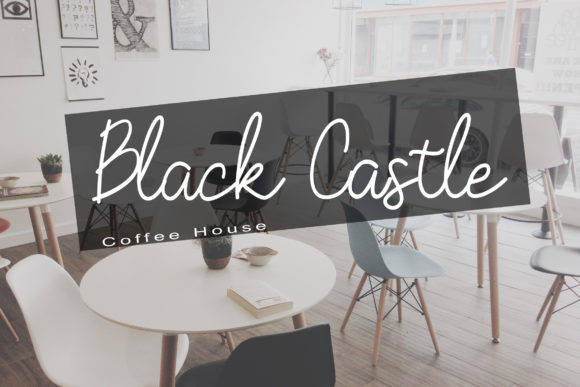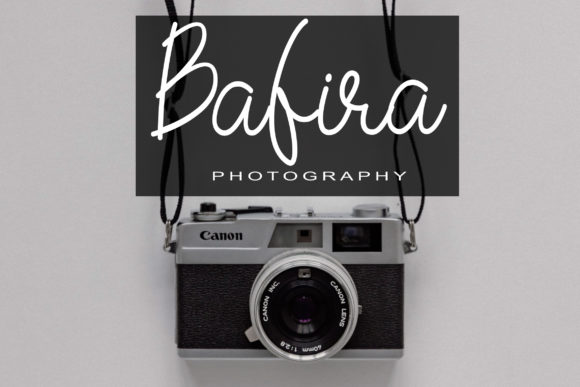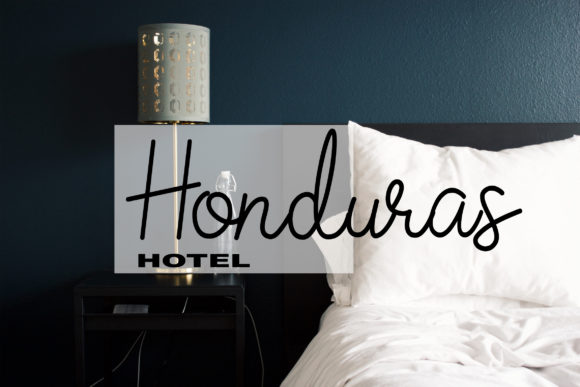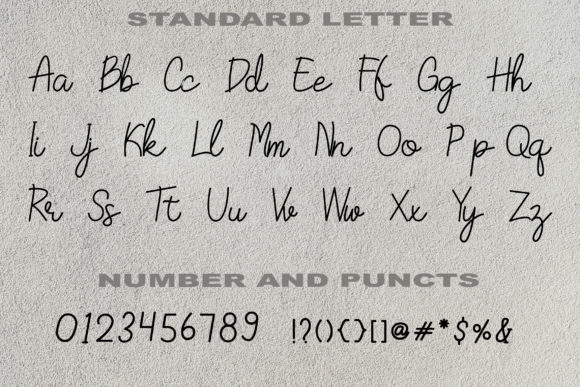
HomeScript FontsAqila Font Script Fonts Aqila Font FacebookTwitterPinterestWhatsApp Aqila Font Poster 2 Aqila Font Poster 3 Aqila Font Poster 4 Aqila Font Poster 5 About Aqila Font The Aqila is a typical handwritten signature font. It will give your designs a striking, yet elegant look. DOWNLOAD NOW People also explored Ergonic Font Camping Plan Font Mukhair Font Bridgeth Font Ginger Font Witch Monogram Font Breathing Font Parttime Font Christmas Grunge Font 143 0 TagsAqila Font Previous articleDeisy FontNext articleArabian Script Font LEAVE A REPLY Cancel reply Comment: Please enter your comment! Name:* Please enter your name here Email:* You have entered an incorrect email address! Please enter your email address here Website: Save my name, email, and website in this browser for the next time I comment. Personal Use Free Barbatrick Personal Use Free Read more about this font Cute Messy Personal Use Free Read more about this font Alligator Font Personal Use Free Read more about this font BD TinyFont Personal Use Free Read more about this font BLOG Transform Your Website: Elevate Your Typography with 7 Best Web Font Generators Are you ready to transform your website's typography from ordinary to extraordinary? Great! Today, we're diving into the world of web font generators, which... Free Fonts Risk: Why Free Fonts Can Be Dangerous for Designers Using Fonts in Digital Marketing: Tips to Strengthen Your Brand Identity Free vs Paid Fonts: Why Investing in Premium Fonts Is Worth It